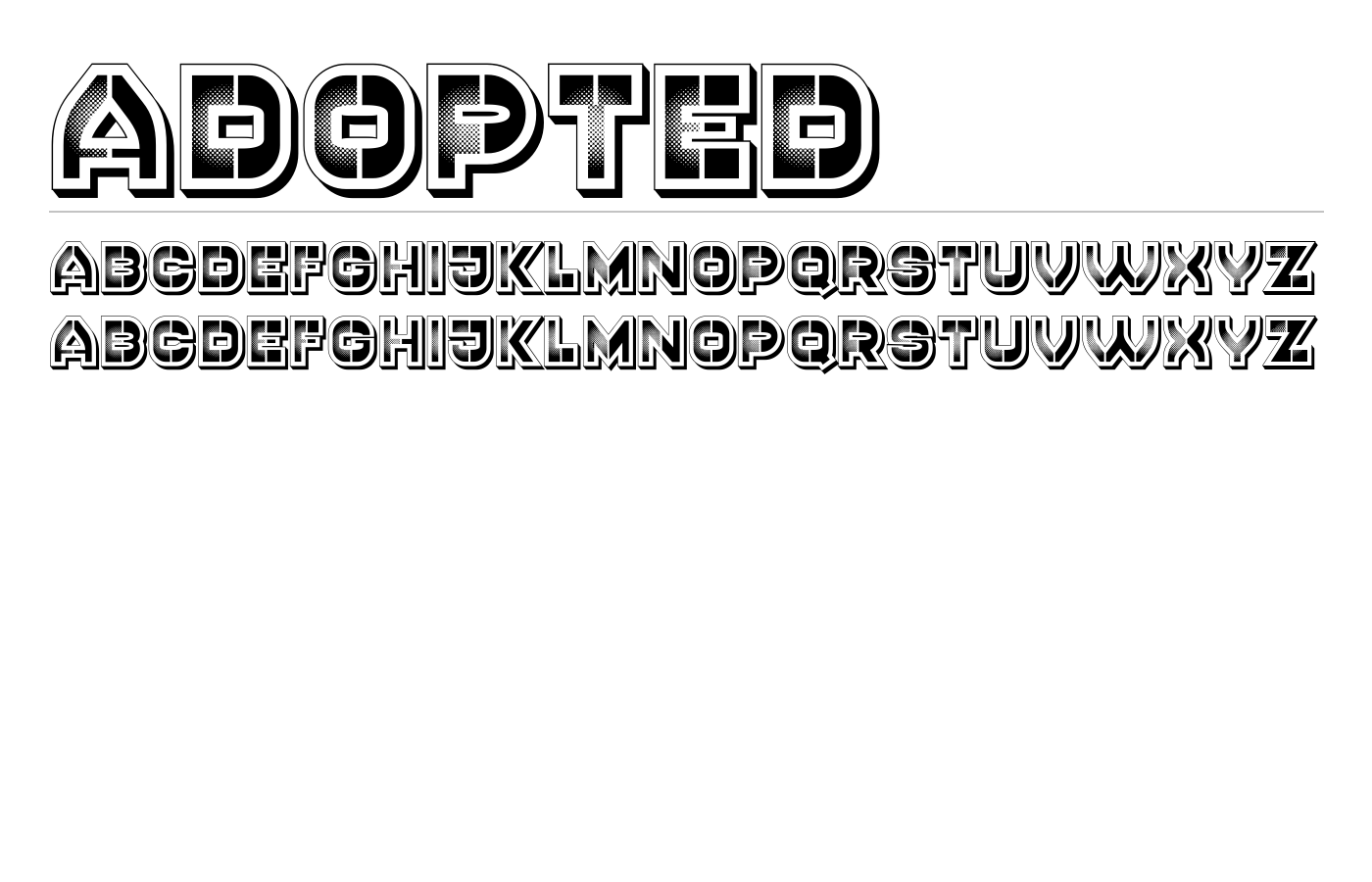
Adopted Font is a bold, all-caps display typeface with a strong geometric structure and high contrast between thick and thin strokes. It features a layered, shadowed design with a halftone texture that adds depth and a vintage comic-book feel, making it ideal for eye-catching headlines, posters, and branding that wants to convey energy and retro style. This font works best where a bold, playful statement is needed to grab attention and create a memorable visual impact.
Adopted Font
About Adopted Font